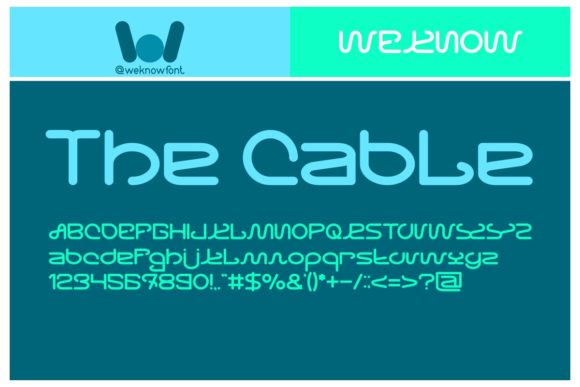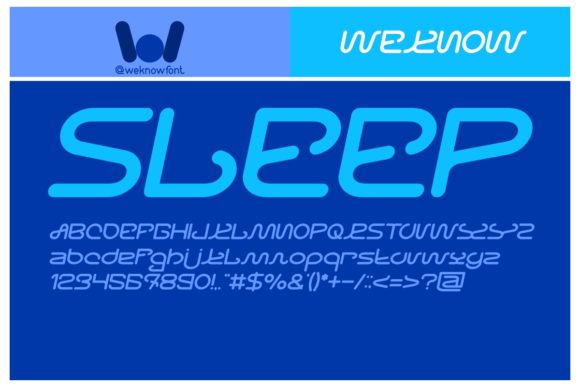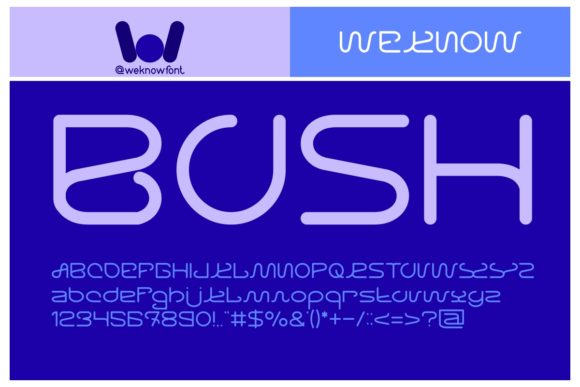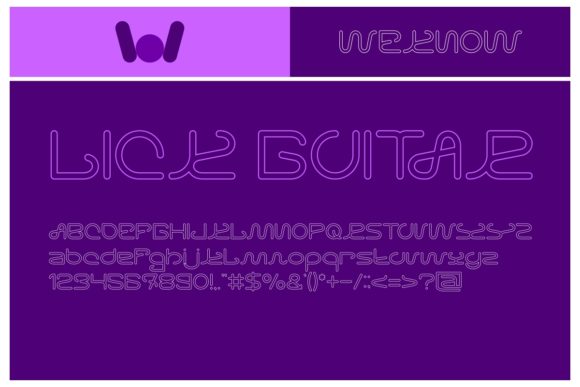
Discover the Charm of Letting Font
Recently, I stumbled upon the Letting Font, and I’m excited to share its unique charm with you. This fresh and geometrically shaped display font is a game-changer for any creative project, offering a high-quality design element that’s sure to make your work stand out. With its clean lines and transparent background, Letting Font is the perfect addition to any design, and its versatility makes it a valuable resource for designers of all levels.
Key Features of Letting Font
- High-quality, professional design perfect for various creative projects, including logos, branding, and graphic designs.
- Features a transparent background, allowing for easy integration with custom designs and backgrounds.
- Includes a large character set, covering a wide range of languages and alphabets, making it a versatile design resource.
- Designed with a modern, elegant aesthetic, making it ideal for use in high-end creative projects.
Honest Review: Letting Font
I recently stumbled upon the Letting Font, and I must say it’s been a game-changer for my creative projects. With its elegant and refined design, it’s perfect for adding a touch of sophistication to any text-based element.
- ✨ High-quality font: The Letting Font is incredibly well-designed, making it a great addition to any project.
- ✨ Transparent background: The transparent background option allows for seamless integration with any design element.
- ⚠️ Limited character set: The Letting Font only includes a limited character set, which may not be suitable for all projects.
- ⚠️ No bold or italic options: The font is only available in regular weight, which may limit its versatility.
Overall, I’m really impressed with the Letting Font. It’s a high-quality design resource that’s perfect for adding a touch of elegance to any creative project. While it may have a few limitations, I think it’s well worth the free download.
Tips for Getting the Most Out of Letting Font
For optimal results, use the Letting Font on a transparent background to create a clean and minimalist design. You can also experiment with different font sizes and styles to add visual interest to your creative project.
The Letting Font is perfect for use in logos, business cards, and other design resources where a high-quality, elegant font is needed. Its versatility makes it a great choice for a variety of creative projects, from brochures to websites.